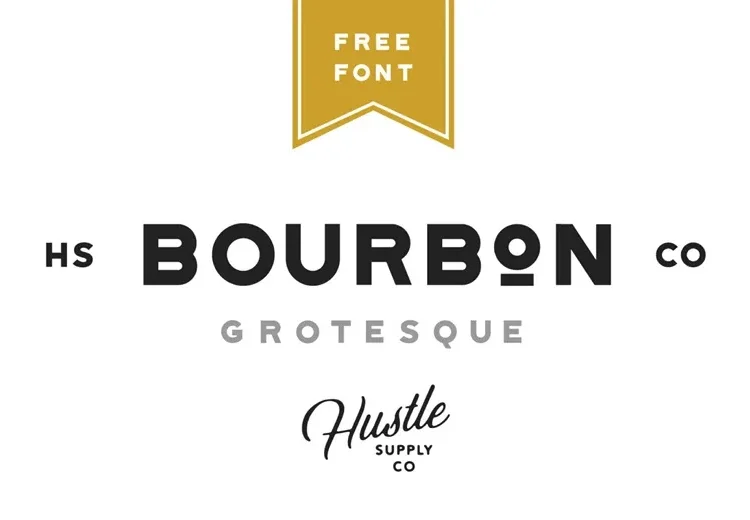
Bourbon Grotesque Font
Bourbon Grotesque is a free sans serif font that combines modern elegance with a subtle vintage industrial touch, making it a confident and versatile choice for your design needs. With its clean yet distinctive letterforms, this typeface exudes strength and clarity without unnecessary complexity, allowing it to adapt seamlessly across various creative projects.
Ideal for headlines, logos, posters, signage, packaging, branding, magazines, and even films, Bourbon Grotesque brings a bold yet refined personality to any medium. Its design is both timeless and contemporary, ensuring your work stands out with sophistication and character.